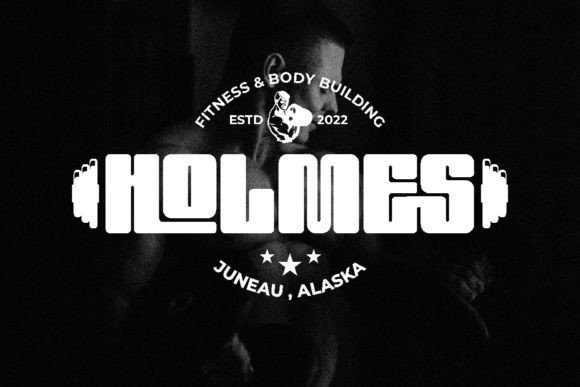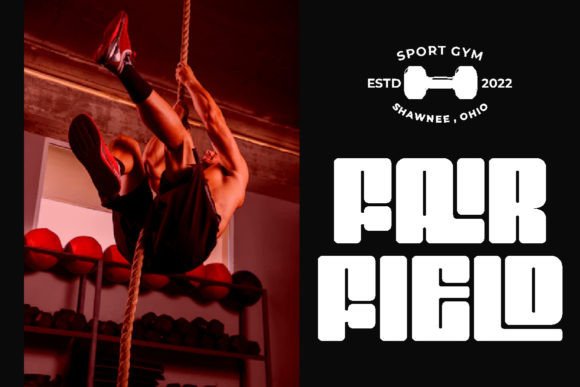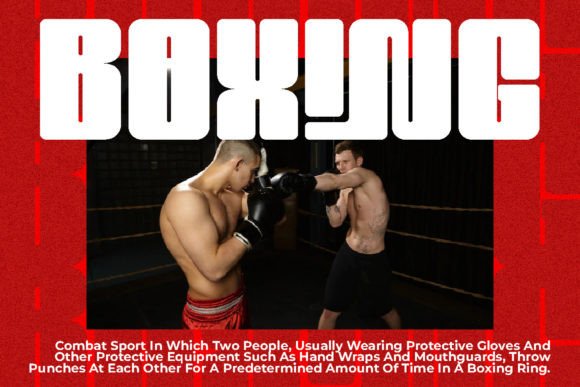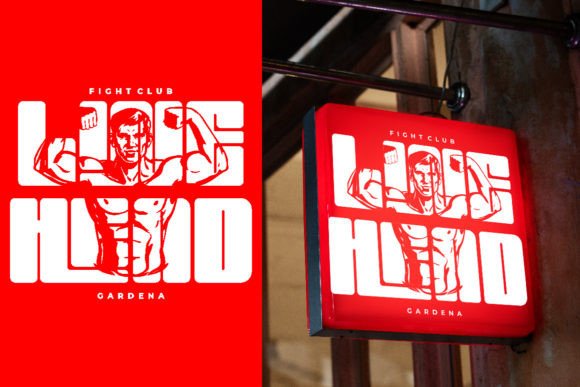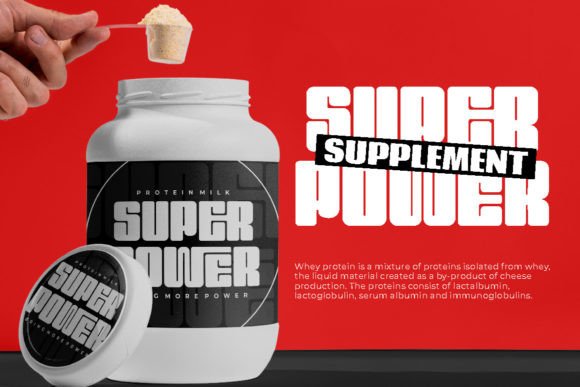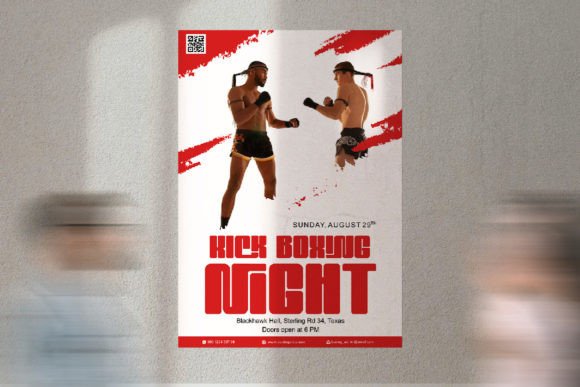
Introduction to Beady Ready Font
Beady Ready – Bold Display Font Beady Ready is a bold display font featuring a modern style, perfect for creating sporty modern-inspired designs.
This font is the perfect choice for designers looking to add a bold and unique touch to their projects Created with attention to detail, Beady Ready is a versatile font that can be used for a variety of purposes, such as branding, packaging, advertising, and more.
Beady Ready Font offers exceptional quality and versatility, making it a valuable addition to your design toolkit. Whether you’re creating for personal projects or commercial use, Beady Ready Font delivers professional results.